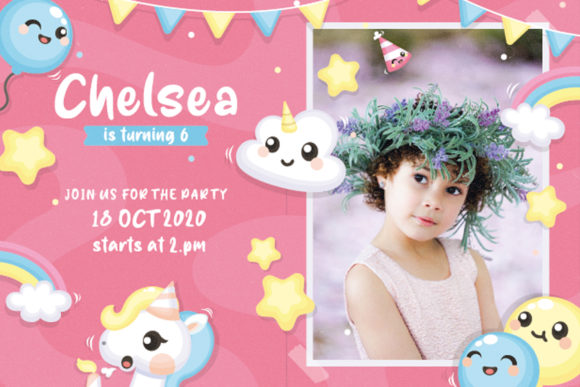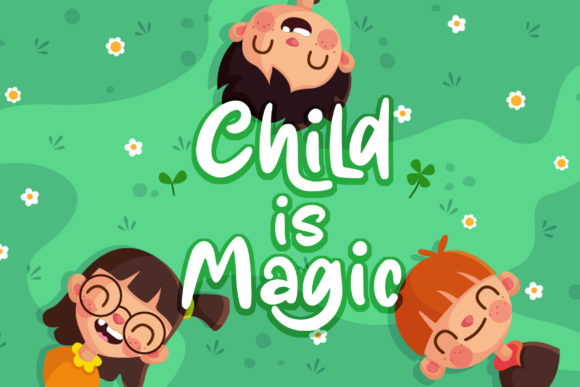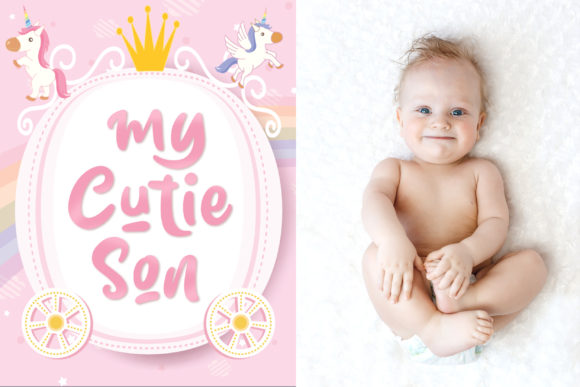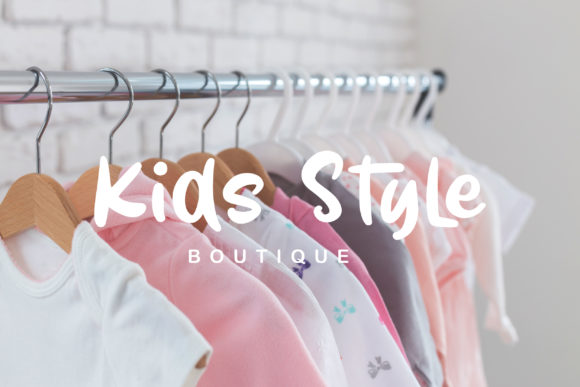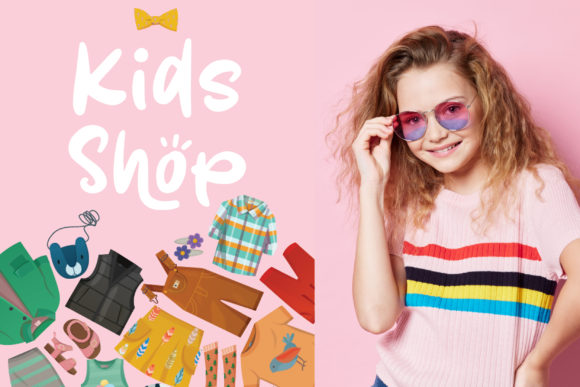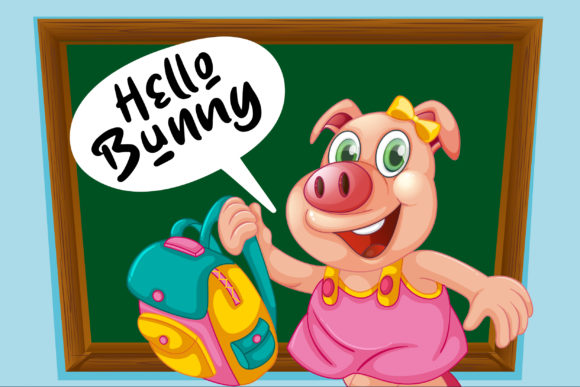
Introduction to Childhood Style Font
Do you remember the joy of doodling in your notebook during class, bringing your imagination to life with colorful scribbles and playful handwriting? For designers, this creative spark is exactly what the Childhood Style Font embodies – a quirky and incredibly friendly handwritten font that captures the essence of carefree childhood days.
With its playful style, this font is perfect for a wide range of projects, from children’s books to school presentations. Its value lies not only in its aesthetic appeal but also in its ability to evoke a sense of nostalgia and wonder, making it an essential tool for designers who want to bring a little magic to their designs.
Key Features of Childhood Style Font
- Unique, hand-drawn design inspired by childhood illustrations, perfect for creative projects and high-quality designs.
- High-resolution design, suitable for printing and digital use at 300 DPI or higher.
- Perfect for use in children’s books, educational materials, and other creative projects requiring a whimsical and playful touch.
Honest Review: Childhood Style Font
I recently stumbled upon the Childhood Style Font and was immediately drawn to its nostalgic charm. This font is perfect for designers working on projects that require a touch of whimsy and playfulness.
- High quality design that captures the essence of childhood memories ✨
- Wide range of styles and weights to suit different creative projects
- Not suitable for formal or corporate designs due to its playful nature ⚠️
Overall, I’m impressed with the Childhood Style Font. It’s a fantastic design resource for anyone working on creative projects that require a dash of childhood magic. While it may not be suitable for all types of designs, it’s definitely a valuable addition to any designer’s toolkit.
The Childhood Style Font is perfect for a wide range of creative projects, including children’s book illustrations, party invitations, and social media graphics. It’s also great for creating a consistent brand identity or logo.